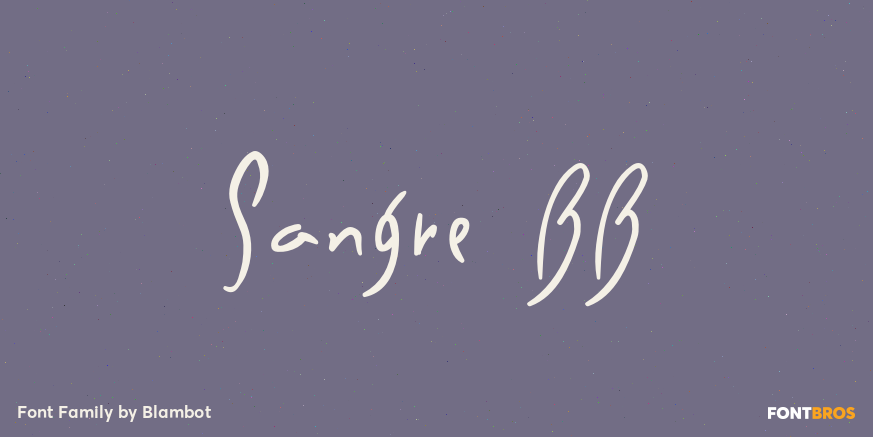
A handwriting font with a decidedly sexy, Mediterranean flair. Perfect for restaurant signage, menus, party invitations and more. Sangre includes a plethora of European characters.